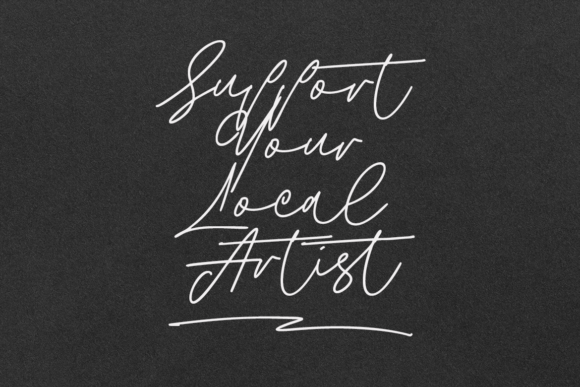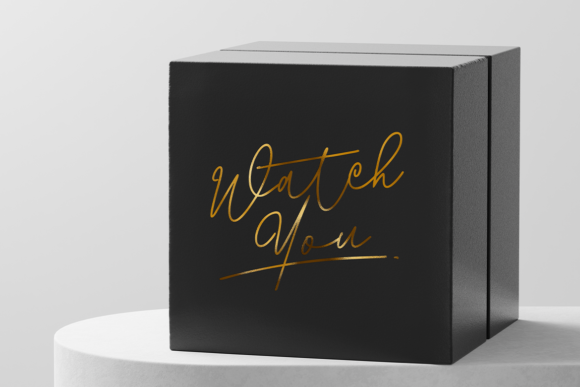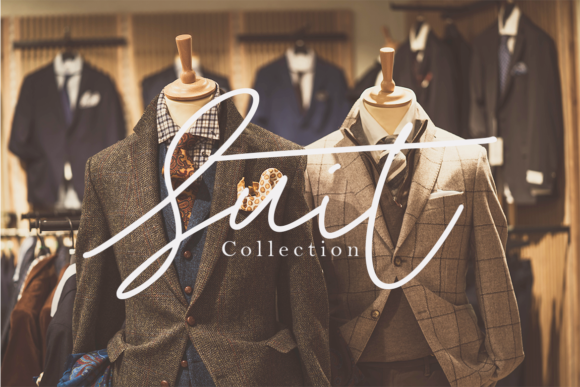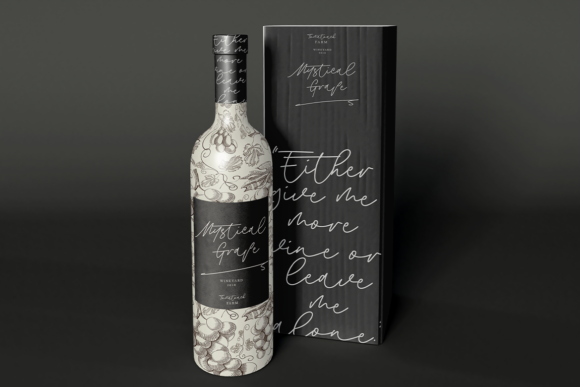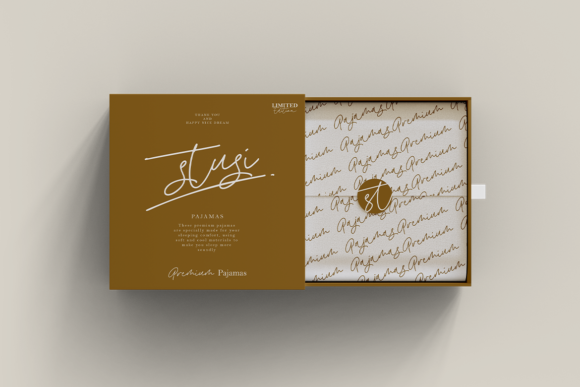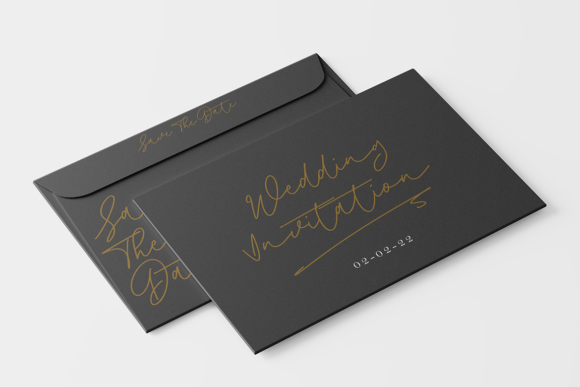
Introduction to Heydista Notes Font
Heydista Notes is an outstanding handwritten font.
This versatile script font has a wide spectrum of applications ranging from greeting cards to headlines Heydista Notes is PUA encoded which means you can access all glyphs and swashes with ease.
Key Features of Heydista Notes Font
Why Choose Heydista Notes Font?
Heydista Notes Font offers exceptional quality and versatility, making it a valuable addition to your design toolkit. Whether you’re creating for personal projects or commercial use, Heydista Notes Font delivers professional results.